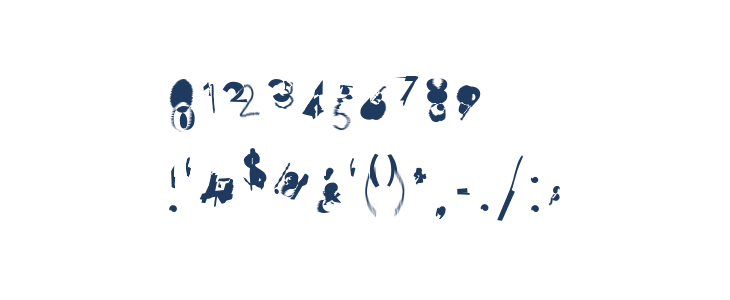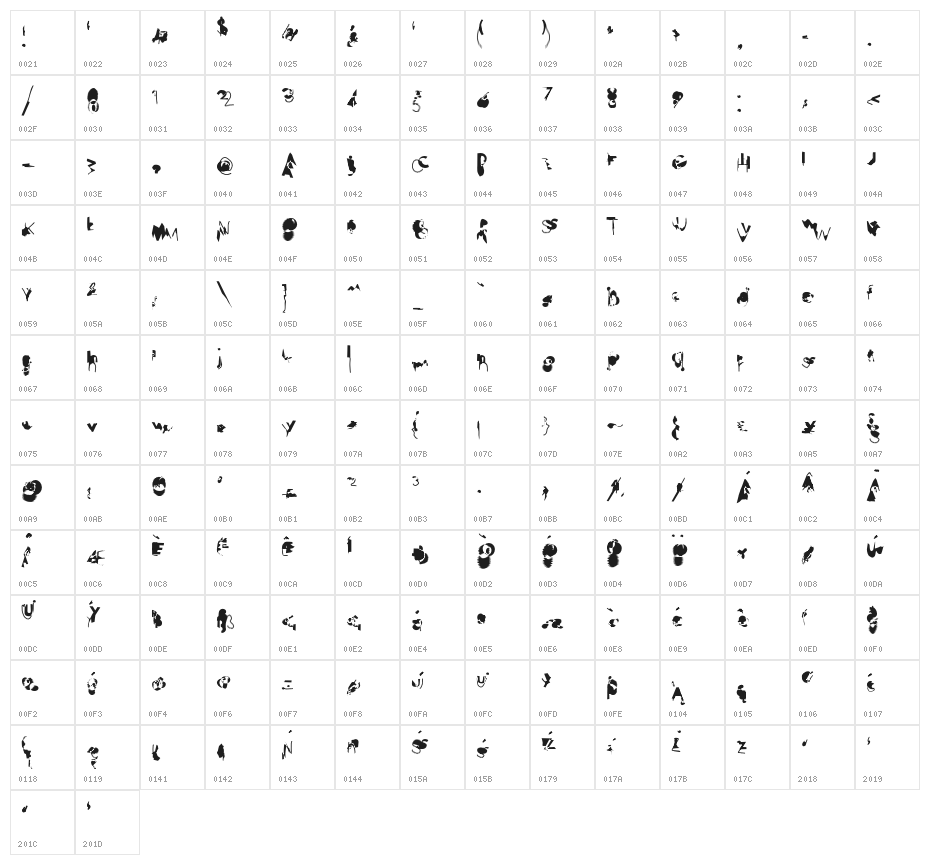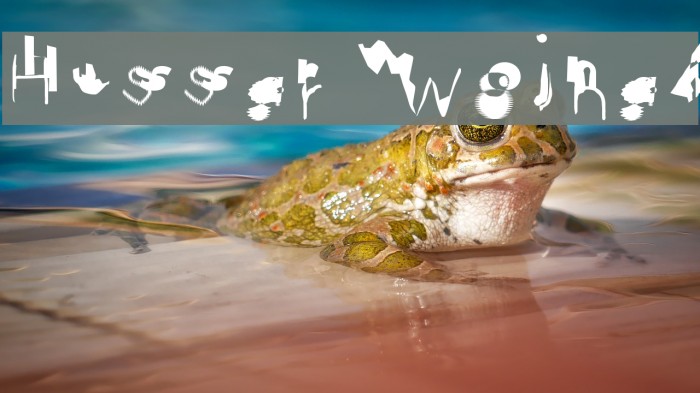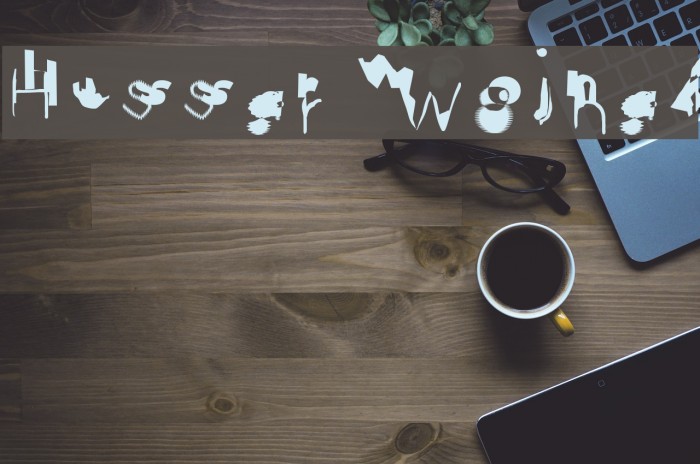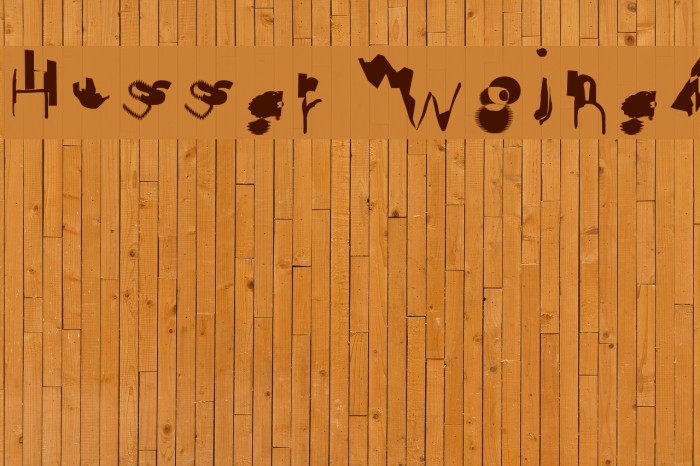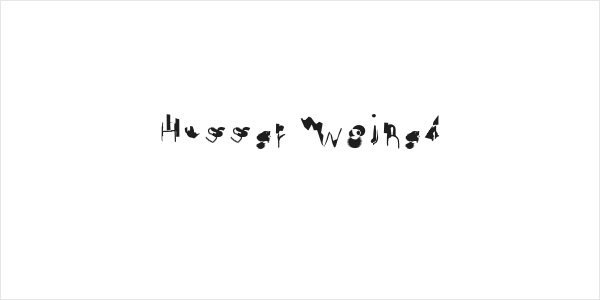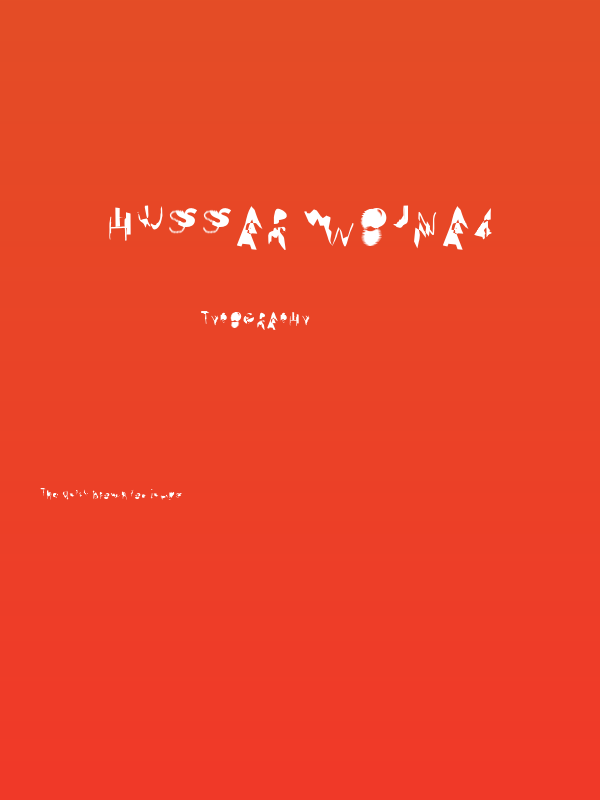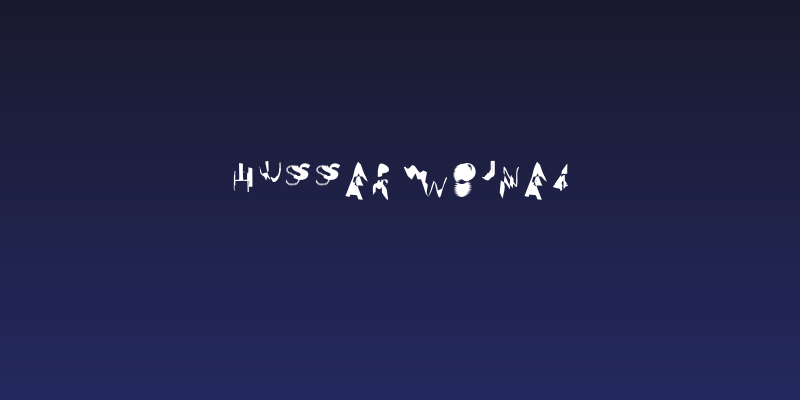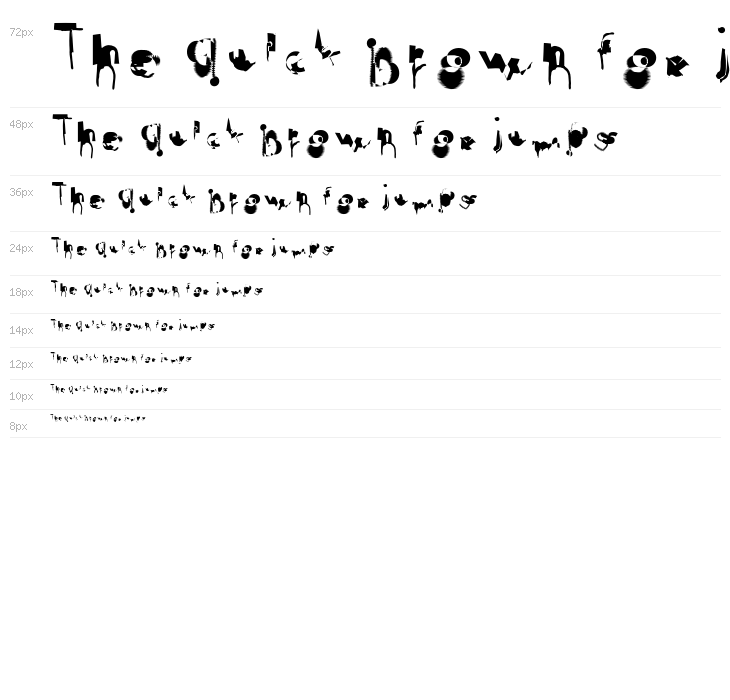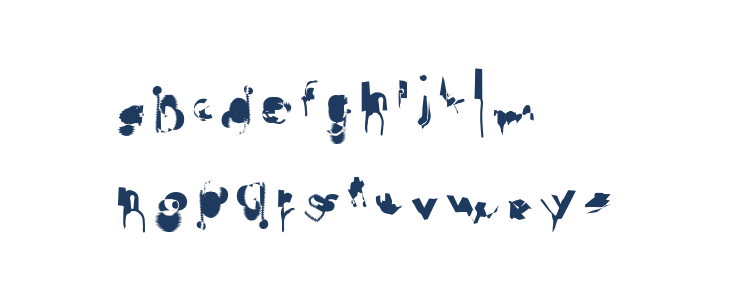
Hussar Wojna4 Font
Hussar Wojna4 Description
This font is a highly stylized and abstract design, characterized by its fragmented and distorted letterforms. Each character appears to be deconstructed, with parts missing or exaggerated, creating a chaotic yet intriguing visual effect. The font features a mix of sharp angles and curves, with varying stroke thicknesses that add to its dynamic appearance. The overall look is reminiscent of a glitch or digital distortion, making it stand out as a unique and artistic choice. The uppercase and lowercase letters maintain this fragmented style, while the numbers and special characters follow suit, ensuring consistency across the entire set.
| Proposed Projects | Ideal for experimental design projects, album covers, modern art posters, and any creative work seeking a bold and unconventional typeface. |